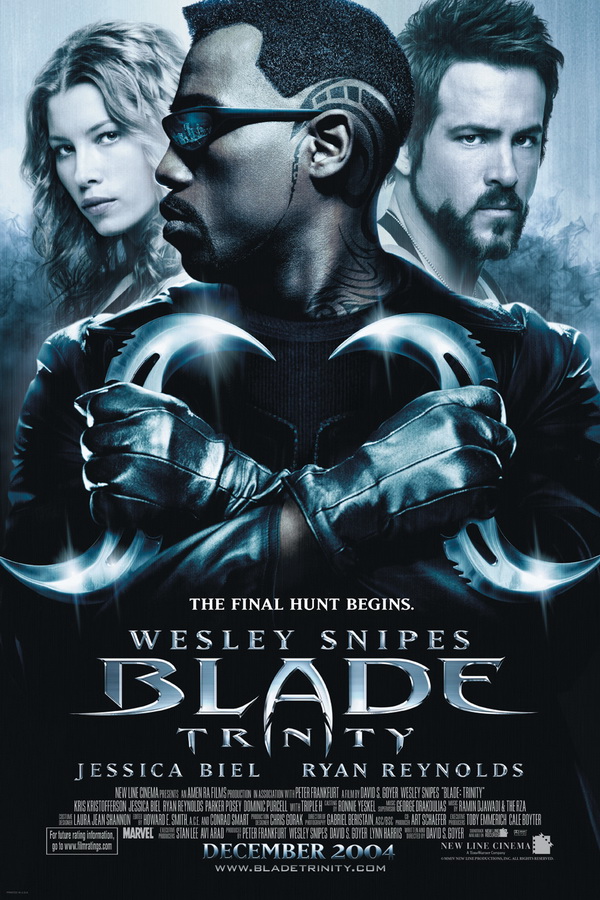
Blade Font
ActionBlade is a 1998 superhero film based on the Marvel Comics character Blade, a half-human, half-vampire hybrid who hunts vampires. The film stars Wesley Snipes as Blade and was directed by Stephen Norrington.
The title font used in both Blade and Blade 2 films appears to be very similar. The font was designed by Jens R. Ziehn and is available for free download from the Fonts Used Section.